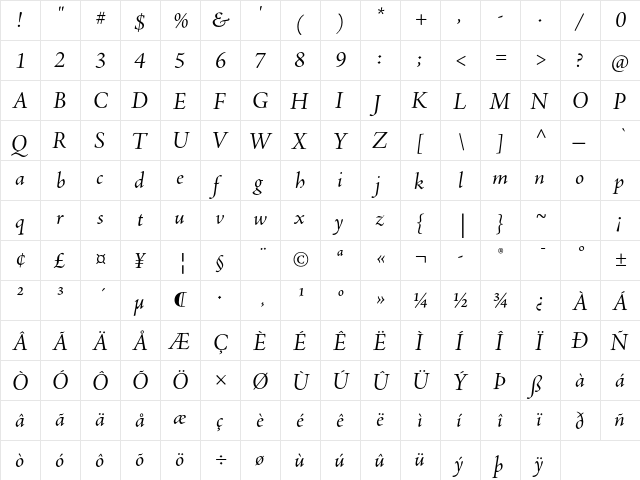
Adobe Jenson Pro Italic Subhead
| Designer | Robert Slimbach |
Design Context for Adobe Jenson Pro Typeface
Adobe Jenson Pro is a composed and adaptable typeface that performs quietly and consistently across a wide range of design contexts. Its italic angle brings a sense of urgency and motion to the letterforms.
Pro Tip: Use Adobe Jenson Pro for emphasis, pull quotes, and subheadings where its slanted energy can add rhythm to the layout.